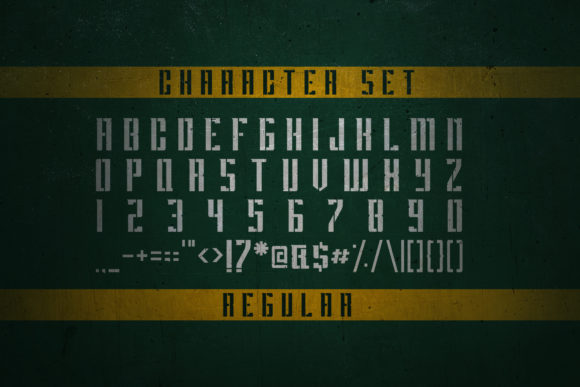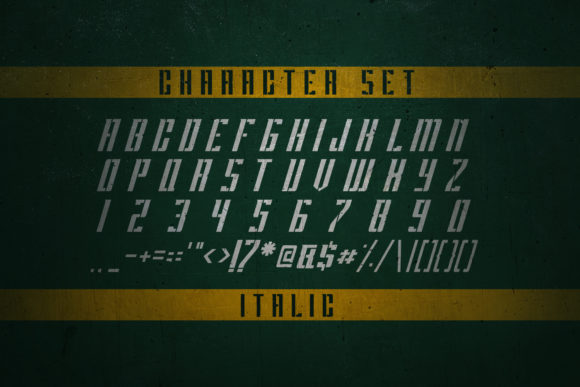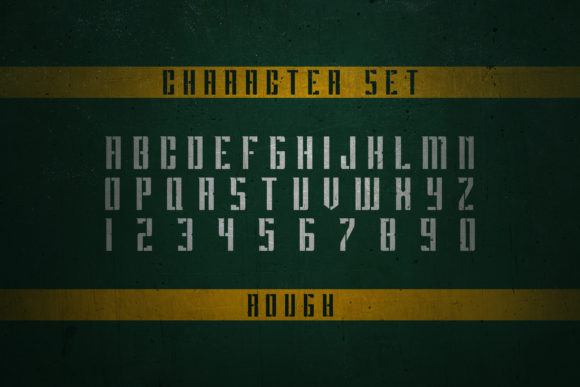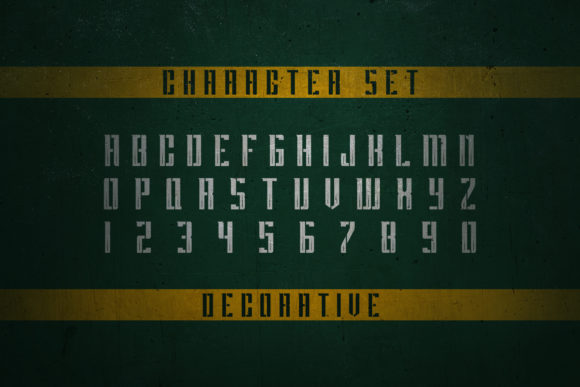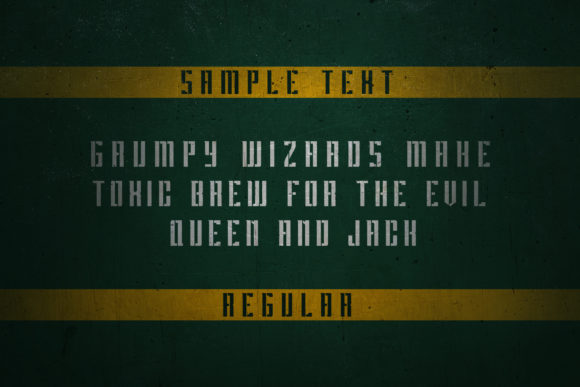
Unleash the End of the World with Apocalypse Font: A Bold and Distinct Display Font
Are you tired of using the same old fonts in your designs? Do you want to make a statement and leave a lasting impression on your audience? Look no further than the Apocalypse Font, a bold and incredibly distinct display font that is sure to make your design ideas stand out.
What is Apocalypse Font?
Apocalypse Font is a unique and eye-catching font that is designed to grab attention. With its bold and rugged appearance, it is perfect for creating striking headlines, titles, and posters. The font features a distressed and worn look, giving it a post-apocalyptic feel that is both edgy and modern.
Key Features of Apocalypse Font
- Bold and Distinctive: Apocalypse Font is a bold and incredibly distinct display font that sends out a strong vibe.
- Distressed and Worn Look: The font features a distressed and worn look, giving it a post-apocalyptic feel.
- Perfect for Headlines and Titles: Apocalypse Font is perfect for creating striking headlines, titles, and posters.
- Easy to Read: Despite its bold and rugged appearance, Apocalypse Font is easy to read, even in large blocks of text.
- Versatile: Apocalypse Font can be used for a wide range of design projects, from posters and flyers to logos and branding.
Why Use Apocalypse Font?
There are many reasons why you should consider using Apocalypse Font in your designs. Here are just a few:
- Stand Out from the Crowd: Apocalypse Font is a unique and eye-catching font that will help your designs stand out from the crowd.
- Convey a Strong Message: The bold and rugged appearance of Apocalypse Font makes it perfect for conveying a strong message or making a statement.
- Add an Edgy Touch: Apocalypse Font adds an edgy touch to any design, making it perfect for designers who want to create bold and striking designs.
How to Use Apocalypse Font?
Apocalypse Font is easy to use and can be incorporated into a wide range of design projects. Here are a few tips for using Apocalypse Font:
- Use it as a Headline Font: Apocalypse Font is perfect for use as a headline font, where its bold and rugged appearance can really make an impact.
- Pair it with Other Fonts: Apocalypse Font can be paired with other fonts to create a striking contrast and add visual interest to your designs.
- Experiment with Different Colors: Apocalypse Font looks great in a wide range of colors, so don’t be afraid to experiment and find the perfect color for your design.
Who Can Use Apocalypse Font?
Apocalypse Font is perfect for designers, crafters, and anyone who wants to create bold and striking designs. Here are a few examples of who can use Apocalypse Font:
- Graphic Designers: Apocalypse Font is perfect for graphic designers who want to create striking posters, flyers, and other designs.
- Crafters: Apocalypse Font is perfect for crafters who want to create unique and eye-catching designs for their handmade projects.
- Marketing and Advertising Agencies: Apocalypse Font is perfect for marketing and advertising agencies who want to create bold and attention-grabbing designs for their clients.
In conclusion, Apocalypse Font is a bold and incredibly distinct display font that is sure to make your design ideas stand out. With its distressed and worn look, it is perfect for creating striking headlines, titles, and posters. Whether you’re a designer, crafter, or marketing agency, Apocalypse Font is a great choice for anyone who wants to create bold and eye-catching designs.